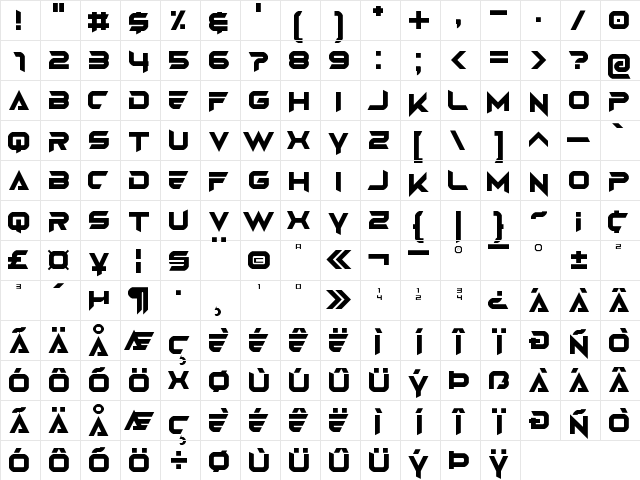
Complete Angas Bold glyph index. Displaying only characters natively supported by Angas Bold font.
Angas is a composed and adaptable typeface that performs quietly and consistently across a wide range of design contexts. Its bold stroke weight gives it real presence on the page.